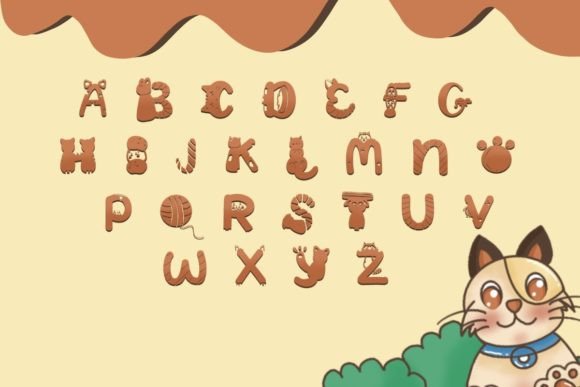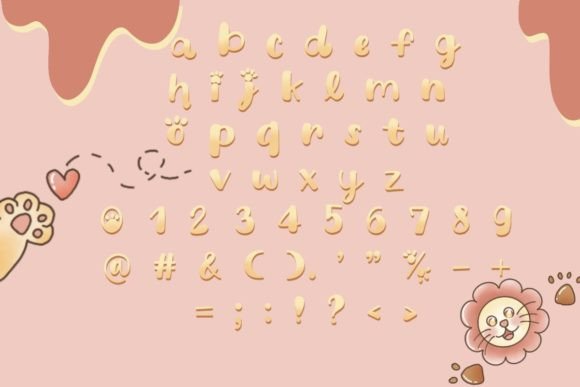
Introduction to Cat Miaw Font
Cat Miaw is a font that combines a cat with a letter give cuteness, playfulness, fun.
It can be applied to your work in many forms such as design your brand Whether itโ€™s clothes, bags, glasses, etc Or it can be used to decorate diaries, notebooks, study summaries sheets as well.
Key Features of Cat Miaw Font